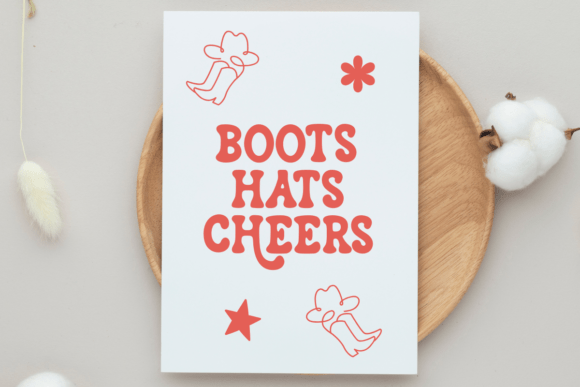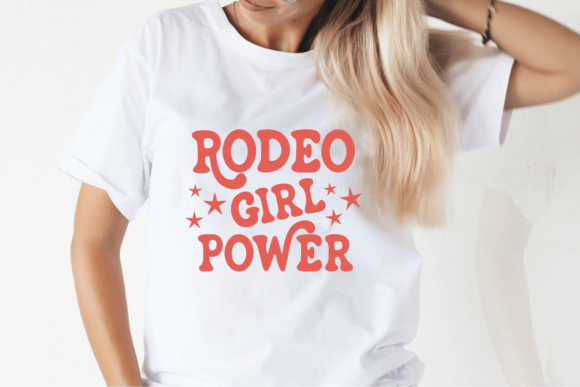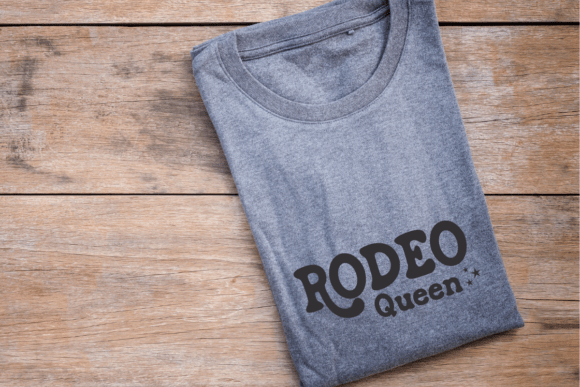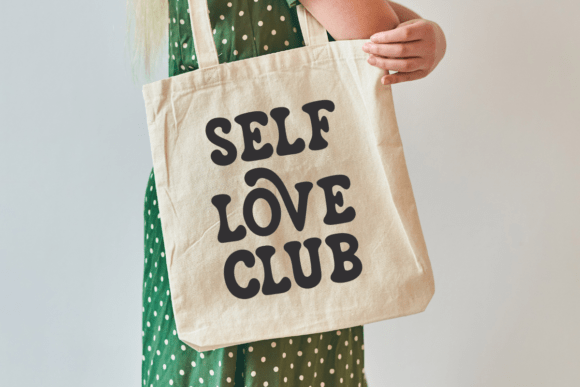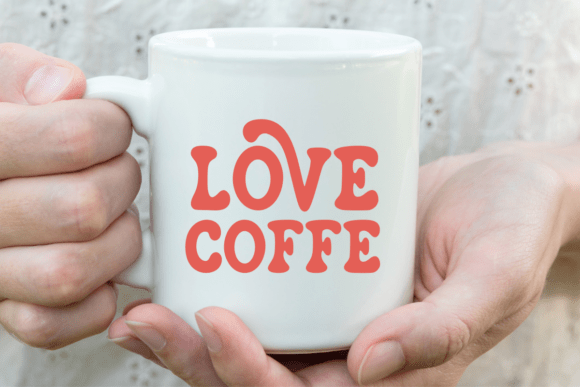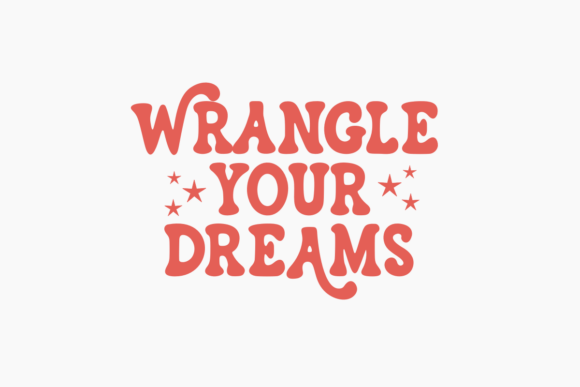
Introduction to Cowboy Howdy Font
Immerse yourself in the rustic charm of Cowboy Howdy, an exclusive handcrafted retro font meticulously designed to breathe life into your creative projects.
Its unique alternate feature is especially captivating, seamlessly fusing style with versatility Ideal for crafting inspring quotes, fashioning statement-making t-shirts, or designing unforgettable tote bags, Cowboy Howdy leaves an indelible mark.
Key Features of Cowboy Howdy Font